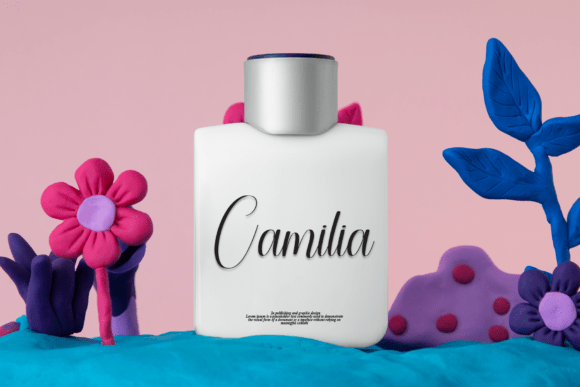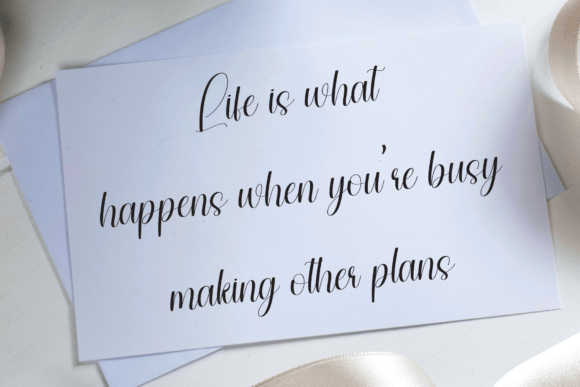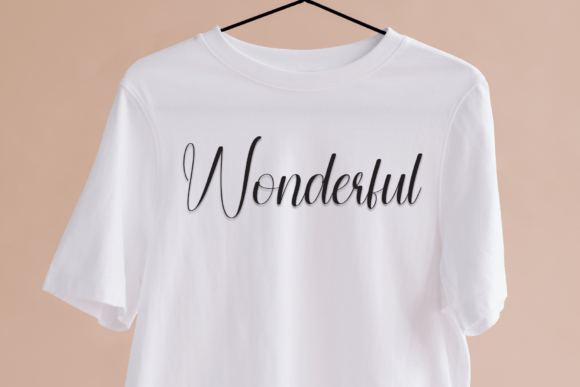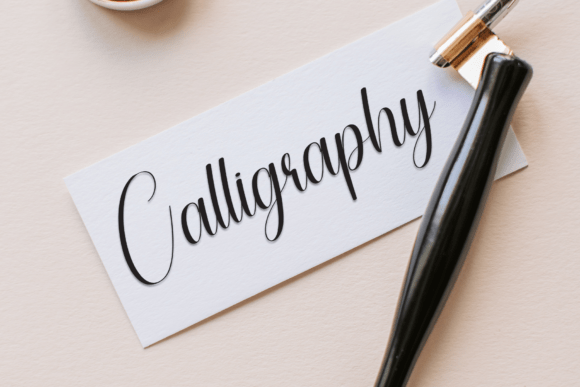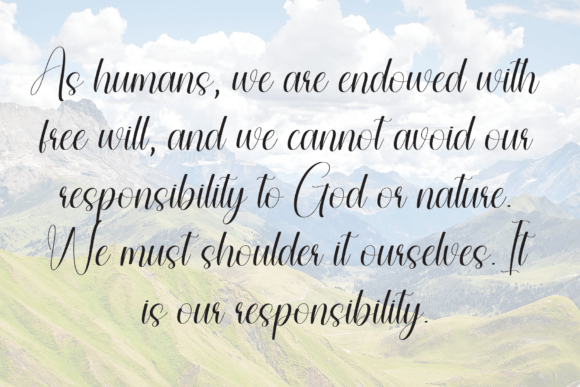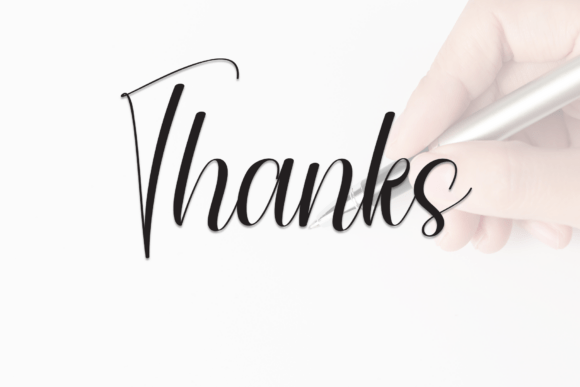
✒️ Elevate Your Designs with Ballpoint Signature Font: A Timeless Classic
Are you searching for a font that exudes elegance, sophistication, and a touch of personal charm? Look no further than the Ballpoint Signature font. This beautiful, handwritten script font is perfect for designers and crafters seeking to add a classic, refined touch to their creations. In this article, we’ll explore the features and benefits of the Ballpoint Signature font, and how it can elevate your designs to the next level.
The Essence of Ballpoint Signature Font
Ballpoint Signature is a graceful, delicate font that embodies the timeless elegance of a meticulous, flowing signature. The slim, looping strokes and high-quality glyphs mimic the effortless yet refined style of a pen on paper, creating an air of upscale formality and personalized charm. The consistent weight and clean lines make it highly readable despite its ornate style, making it perfect for a wide range of design applications.
Key Features of Ballpoint Signature Font
- Classic Script Style: The Ballpoint Signature font features a beautiful, handwritten script style that is reminiscent of a traditional pen and paper signature.
- Slim Looping Strokes: The font’s slim, looping strokes create a sense of fluidity and elegance, making it perfect for formal and sophisticated designs.
- High-Quality Glyphs: The font features high-quality glyphs that are designed to mimic the imperfections of handwriting, adding a touch of authenticity to your designs.
- PUA-Encoded: The Ballpoint Signature font is PUA-encoded, ensuring effortless access to all glyphs, swashes, and alternate characters to help you customize your creations with ease.
Use Cases for Ballpoint Signature Font
The Ballpoint Signature font is versatile and can be used in a variety of design applications, including:
- Sophisticated Logotypes: Create elegant and refined logotypes that make a lasting impression on your clients and customers.
- Formal Invitations: Add a touch of elegance to your formal invitations, whether it’s for a wedding, birthday party, or corporate event.
- Professional Watermarks: Use the Ballpoint Signature font to create professional watermarks that add a touch of sophistication to your designs.
- Product Endorsements: Create beautiful product endorsements that feature a classic, authentic ‘signed’ look.
Why Choose Ballpoint Signature Font?
So, why should you choose the Ballpoint Signature font for your next design project? Here are just a few reasons:
- Timeless Elegance: The Ballpoint Signature font features a timeless elegance that will never go out of style.
- High Readability: Despite its ornate style, the font is highly readable, making it perfect for body text and headings.
- Customization Options: The font’s PUA-encoding ensures that you have effortless access to all glyphs, swashes, and alternate characters, giving you complete creative control.